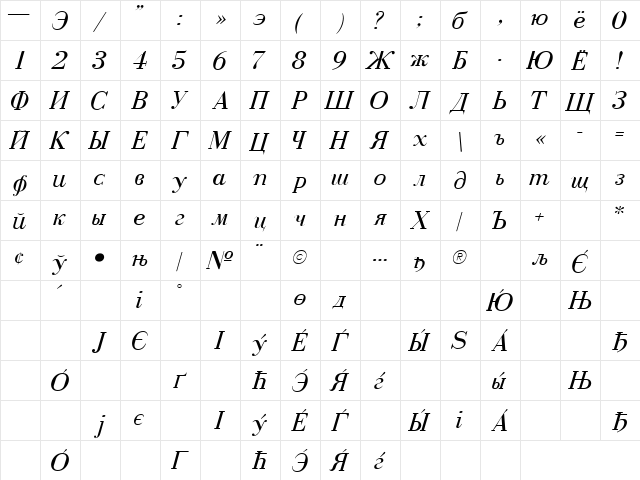
Dearborn Normal-Italic
Design Context for Dearborn Typeface
Dearborn is a composed and adaptable typeface that performs quietly and consistently across a wide range of design contexts. The slanted form adds forward momentum and visual energy.
Pro Tip: Try Dearborn for annotation and caption copy alongside an upright companion — the contrast in angle creates a dynamic but ordered typographic system.